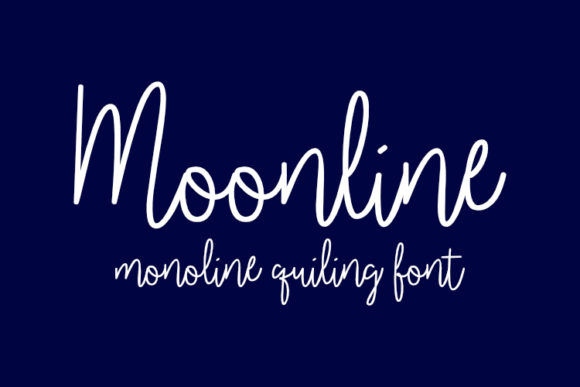
Journey into the world of Moonline Font, a script font that weaves enchantment into every word. Crafted with meticulous care and a touch of elegance, Moonline is not just a font; it's a gateway to captivating designs that speak volumes.
Immerse yourself in the beauty of Moonline, where timeless elegance meets authentic calligraphy. Its classic style exudes a sense of sophistication, while the friendly feel adds a touch of warmth and approachability. With Moonline, you'll create designs that resonate with your audience, leaving an unforgettable impact.
Moonline is the font that sets your designs apart. Its captivating strokes command attention, adding a touch of intrigue to your creations. Whether you're crafting logos, branding materials, or personal projects, Moonline will elevate your work to new heights of creativity.
Its versatility knows no bounds. Use Moonline to design elegant wedding invitations, heartfelt cards, or captivating posters. Unleash your imagination and explore the endless possibilities that await you with this enchanting font.
Moonline is more than just a collection of letters; it's an invitation to embark on a creative journey. Discover the magic of Moonline today and transform your designs into captivating works of art.